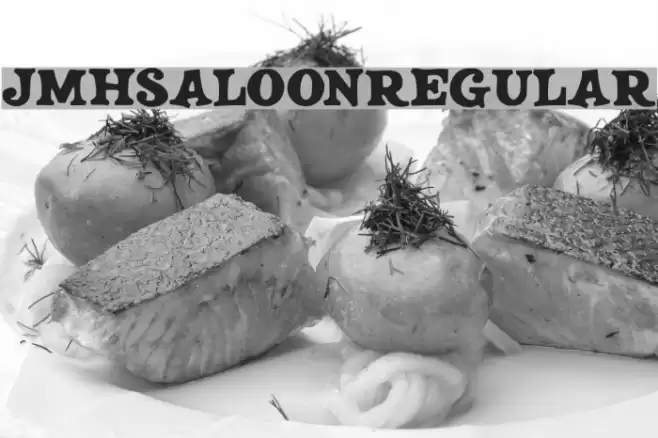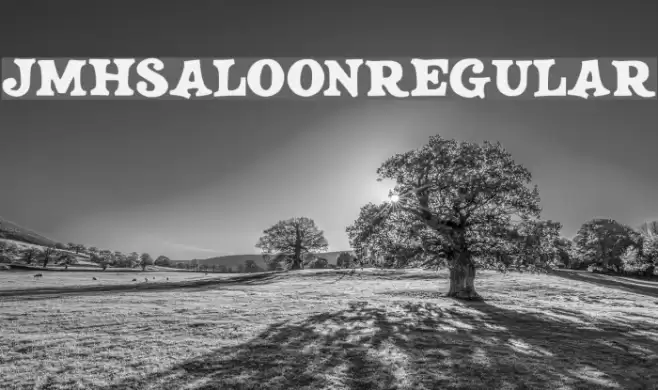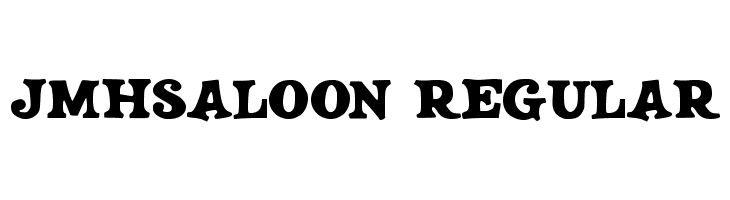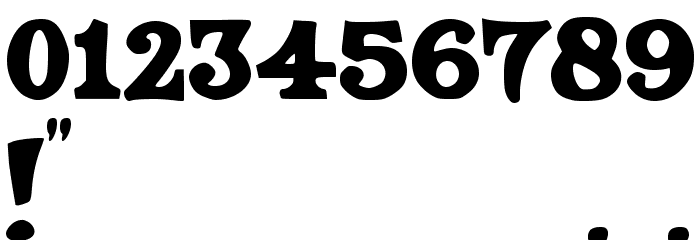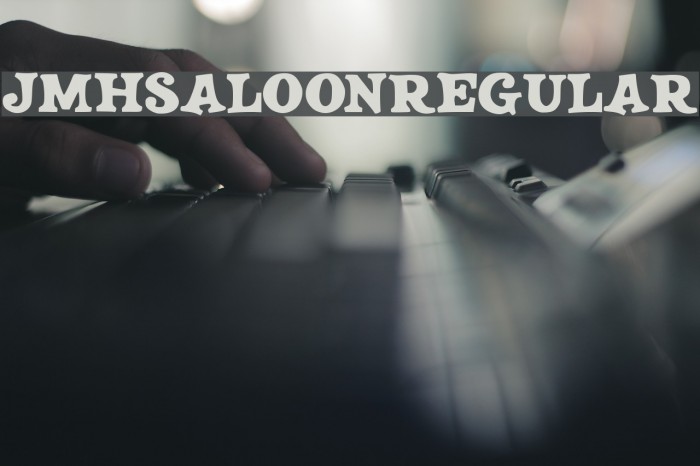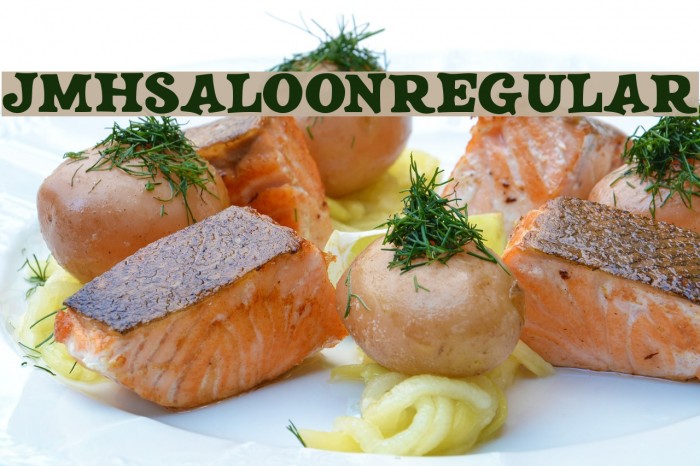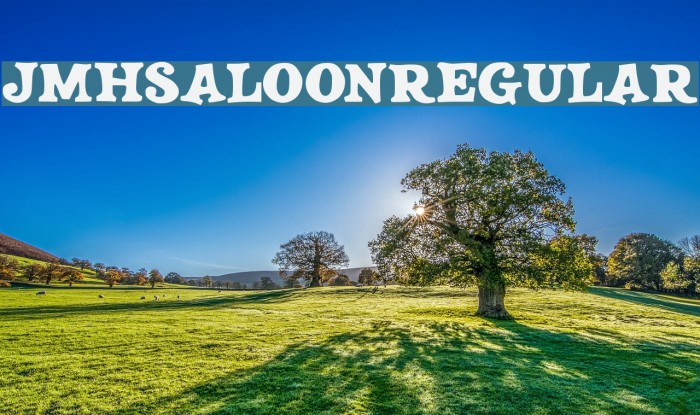
JMHSALOON-Regular Font
JMHSALOON-Regular Description
This font features a bold and playful style with a strong Western influence. The characters are thick and robust, with exaggerated serifs that give it a distinctive, decorative appearance. The uppercase letters are particularly striking, with a sense of movement and flair that suggests a lively, saloon-inspired aesthetic. The numerals and special characters maintain this boldness, ensuring consistency across all glyphs. The overall design is reminiscent of vintage signage, making it ideal for projects that require a touch of nostalgia or a playful, eye-catching headline.
A bold, decorative font with a Western, saloon-inspired style from Uncategorized fonts.
- Proposed Projects: Perfect for vintage-themed posters, bar or restaurant branding, playful invitations, or any project needing a bold, nostalgic touch.
- Overall Style: Vintage